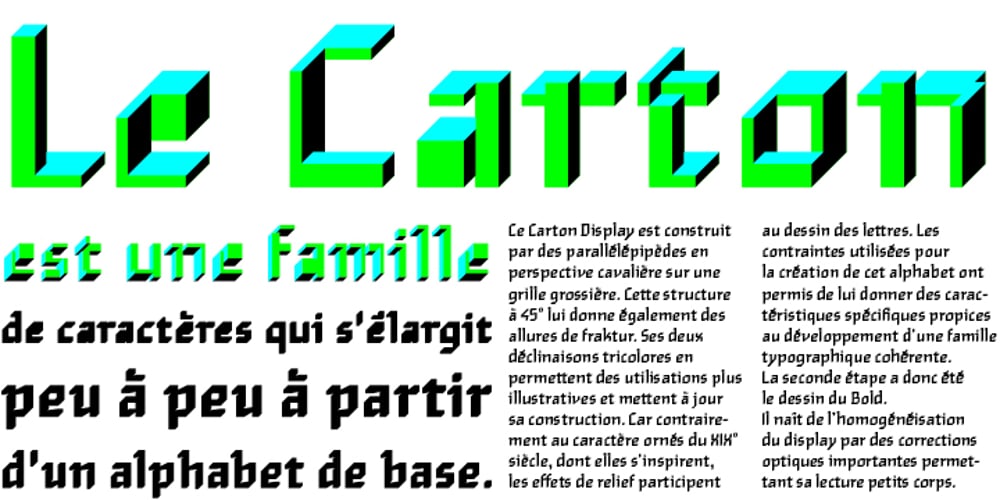
Carton Font Family was designed by Alisa Nowak, Sebastien Degeilh and published by Nowak & Degeilh. Carton contains 3 styles and family package options. Carton is a font family whose origin comes from his Display version, which is made up of a parallelepiped in isometric projection on a large grid. The Carton type family boasts an entire range of original forms with a number of different constraints other than calligraphic strokes or modular construction techniques. The constraints chosen in the process of creating this alphabet allowed us to give it specific features which would lead to the development of a coherent family of type. The design of the Bold and Regular departs from the earlier strict geometrical forms and increases in contrast and complexity. It paved the way for the creation of a thinner character for the reading of ordinary texts.